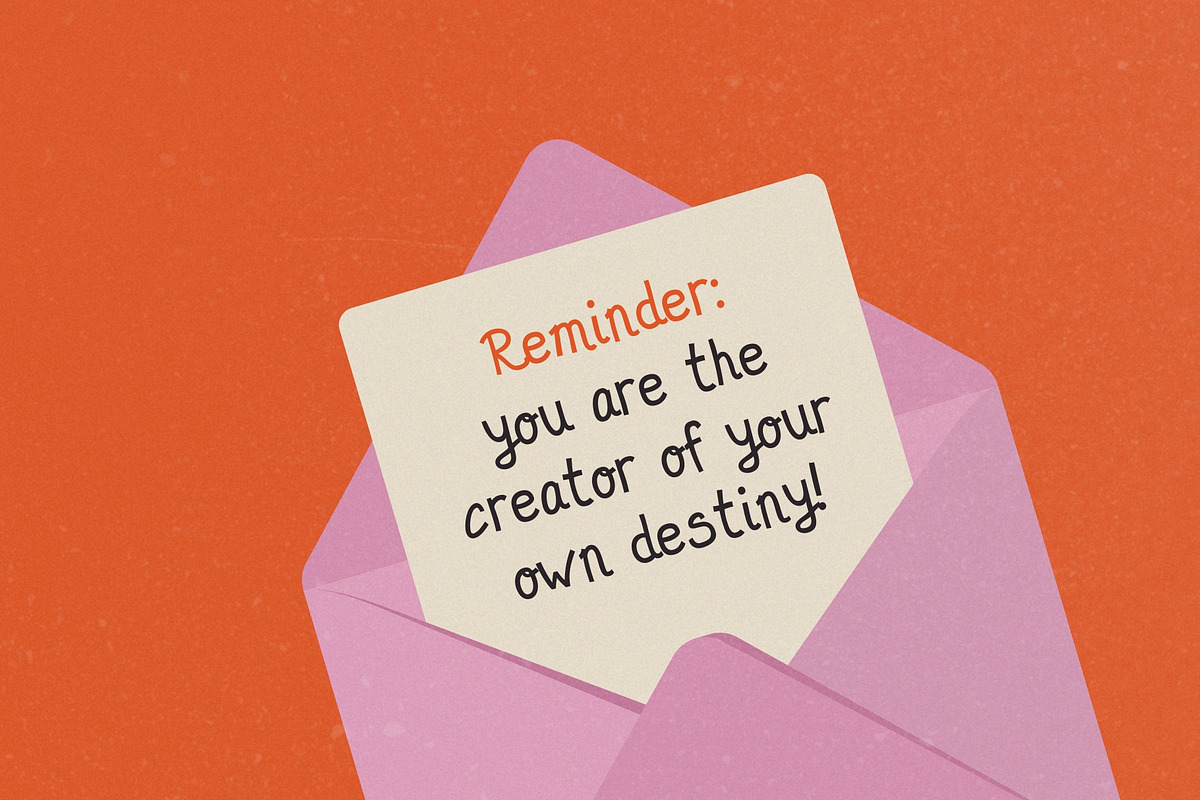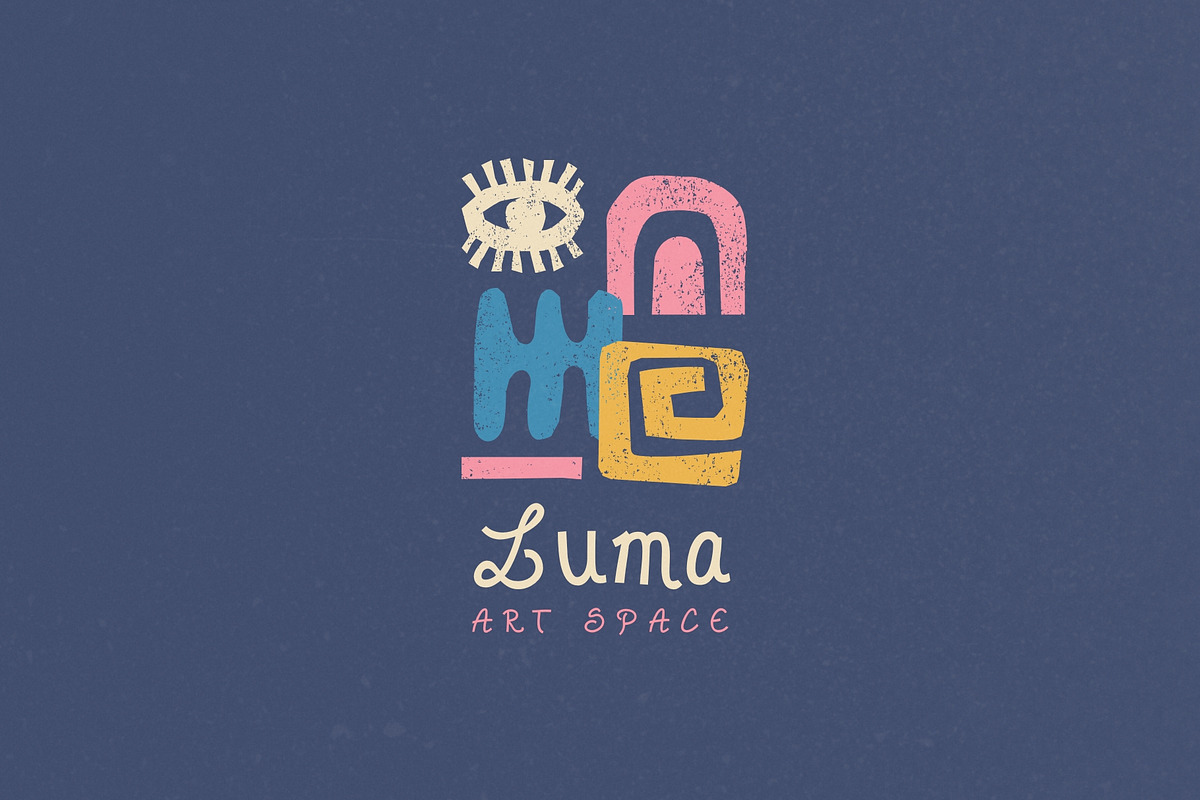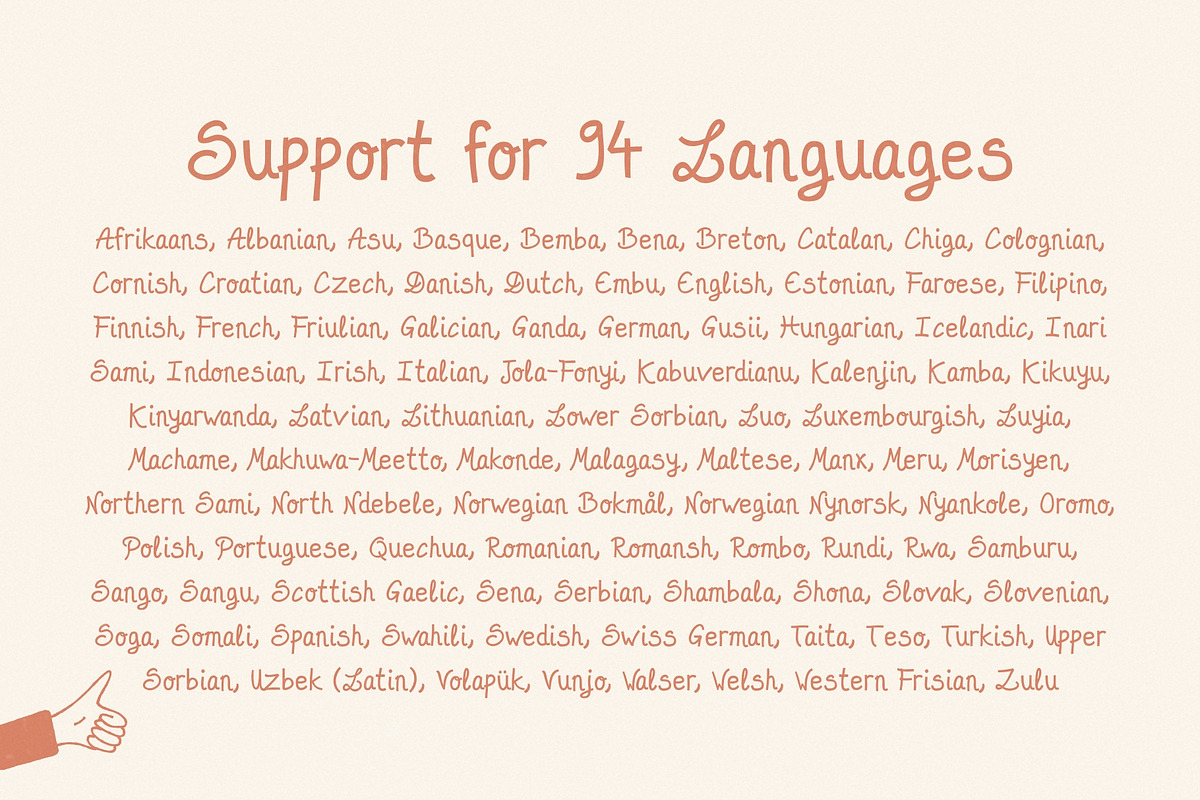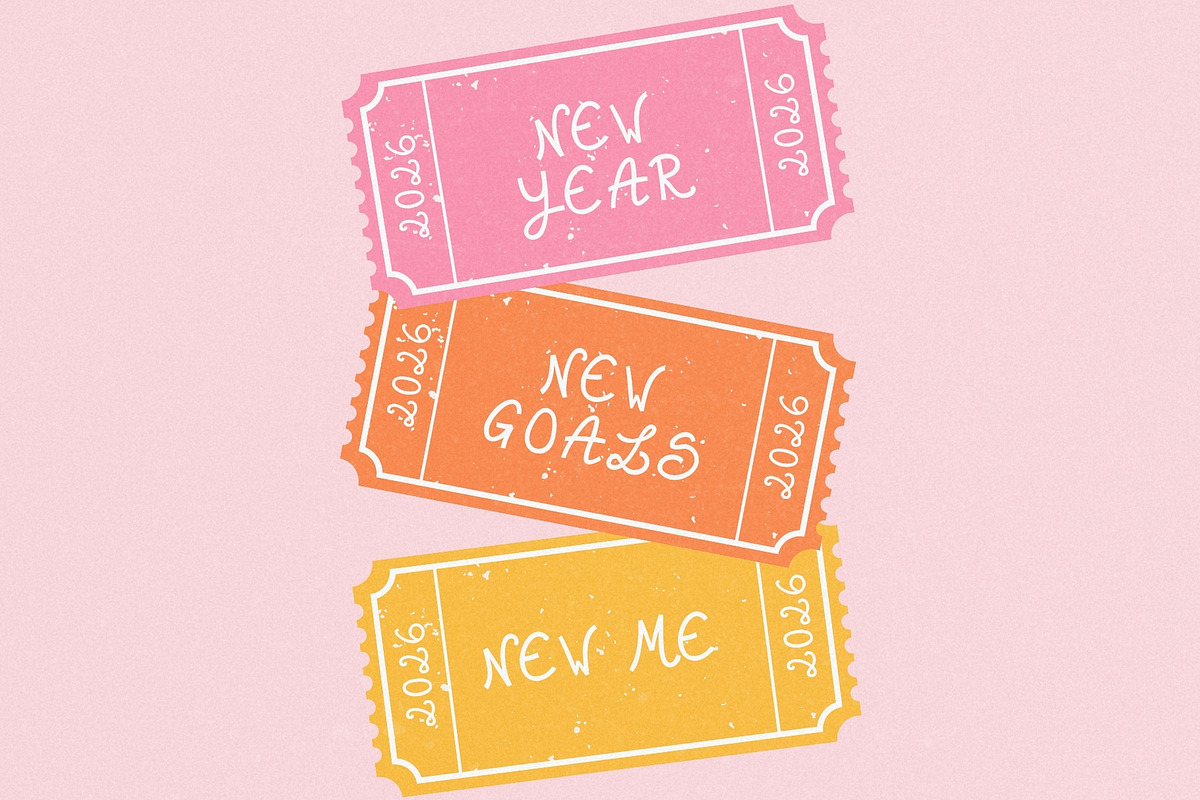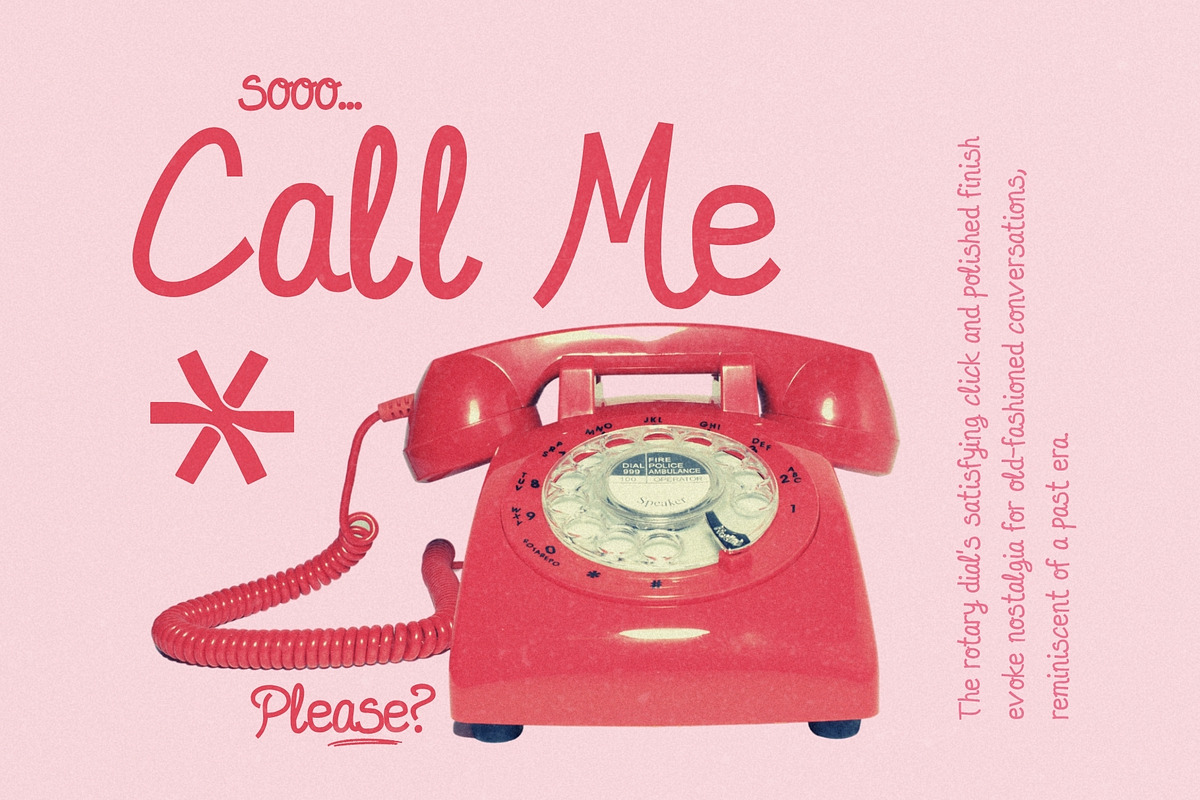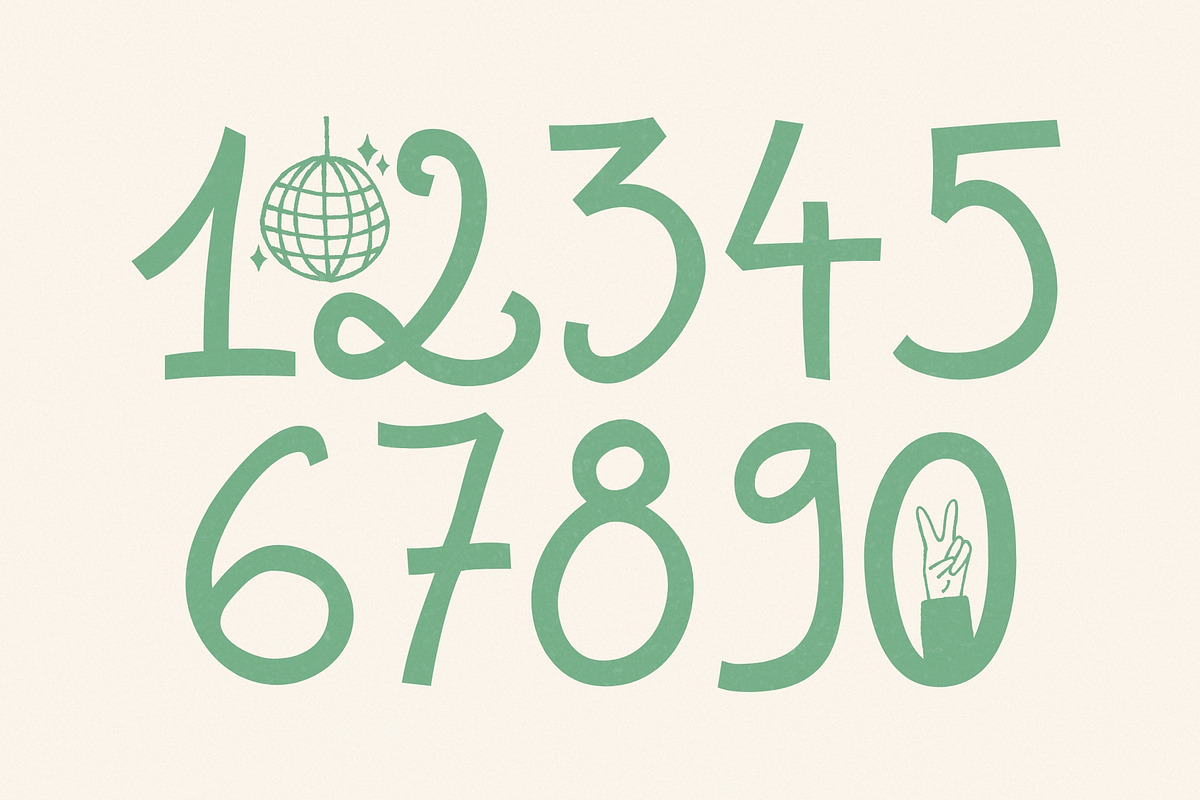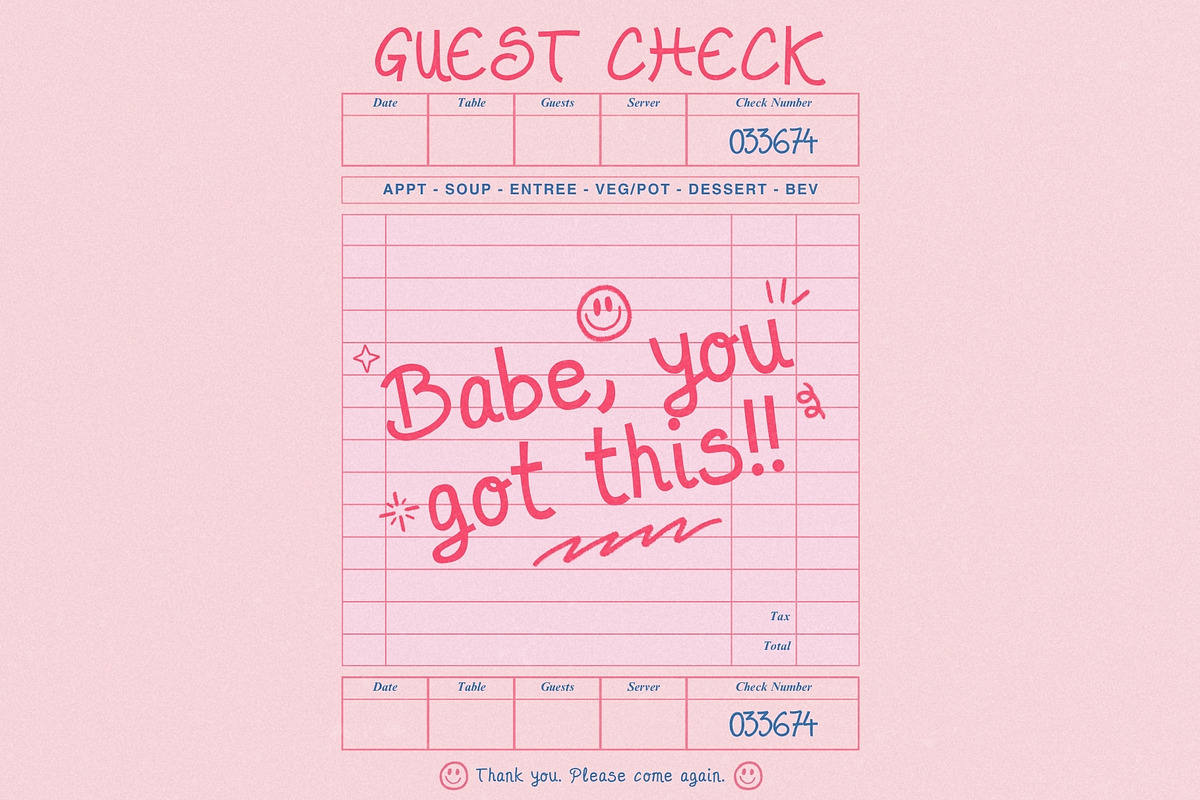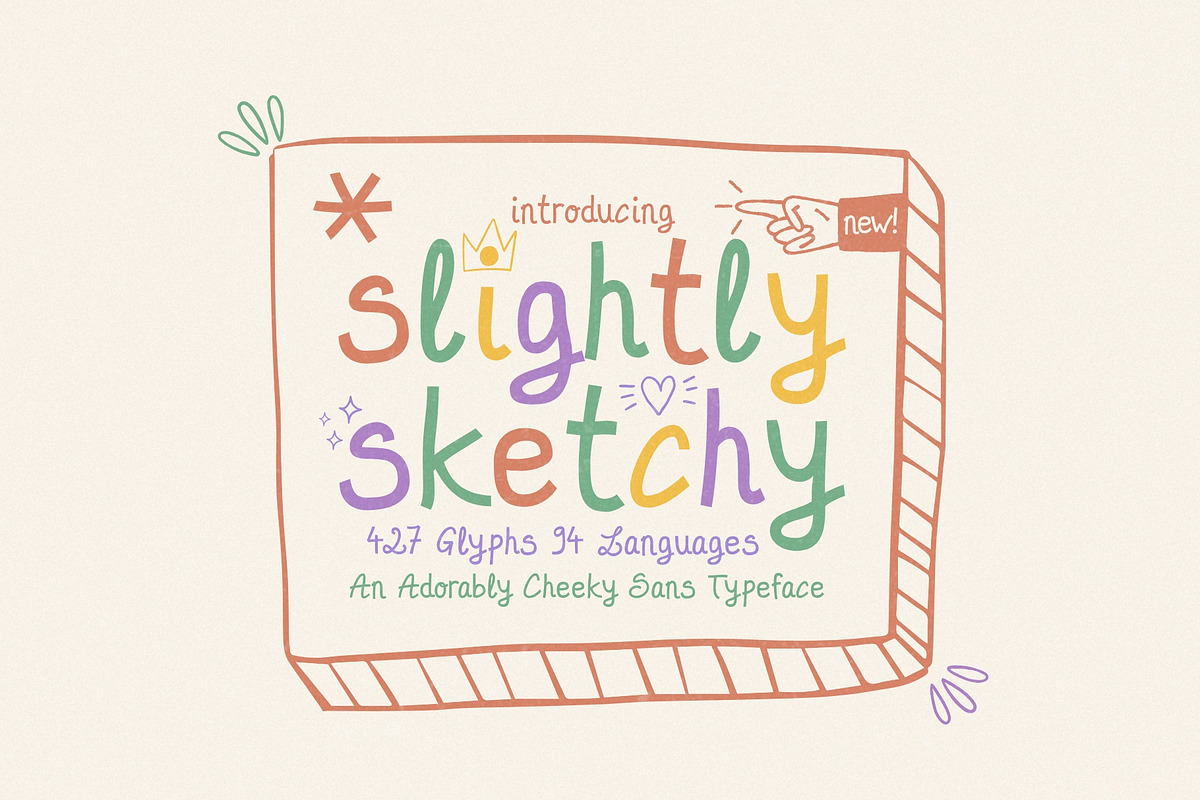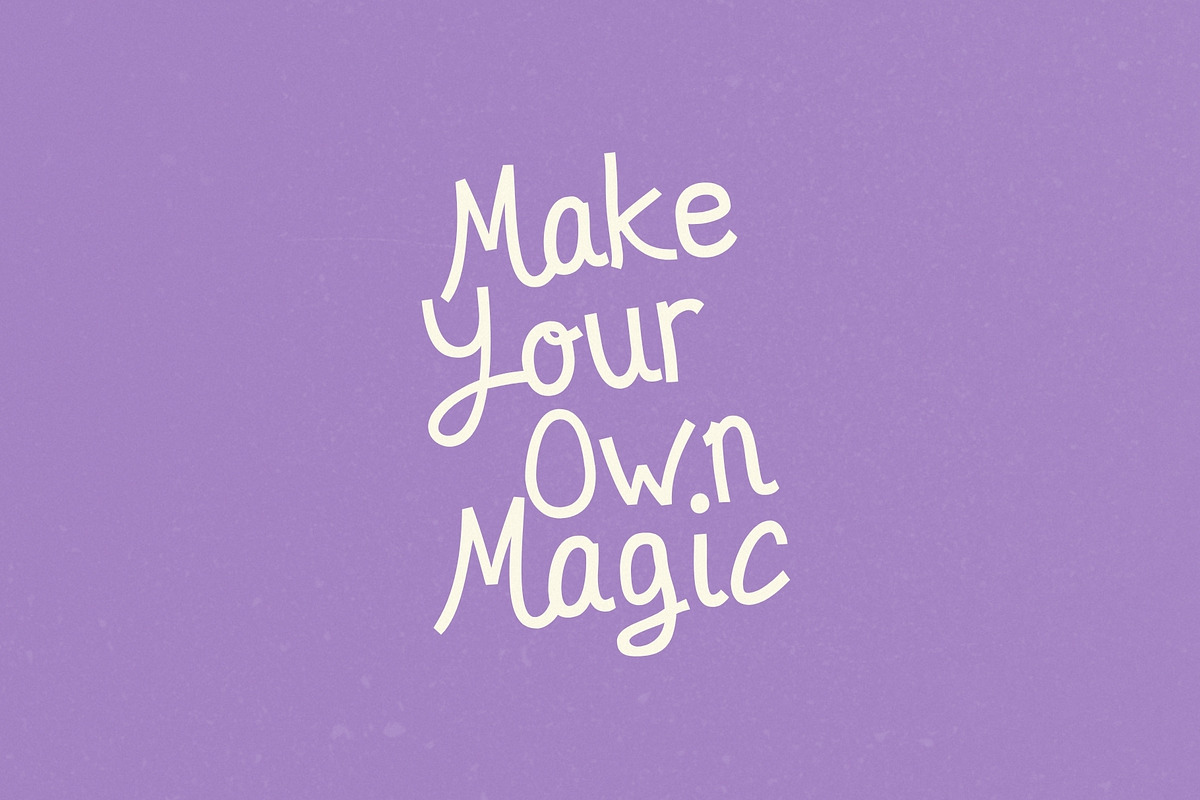
Slightly Sketchy - Cheeky Typeface
Meet Slightly Sketchy, your new go-to font for all things playful, cute, and full of personality! This adorably cheeky sans typeface was crafted to bring smiles, charm, and a touch of mischief to every design it touches.
With 427 glyphs and support for 94 languages, Slightly Sketchy is bursting with creative potential. Whether you’re designing posters, stickers, logos, menus, flyers, packaging, or branding, this font adds a whimsical spark that makes your work stand out effortlessly.
Its hand-drawn, slightly imperfect lines give it that “made with love” feel — perfect for designers who want to create something fun, friendly, and full of charm.
So go ahead — get a little sketchy and let your imagination run wild!